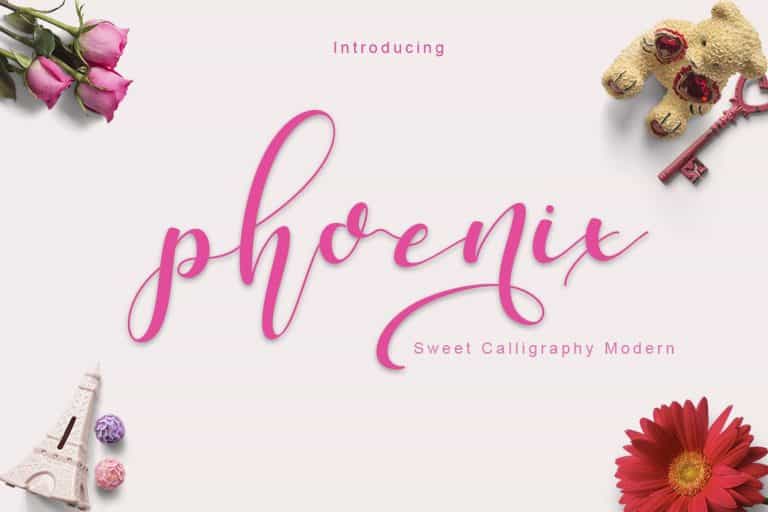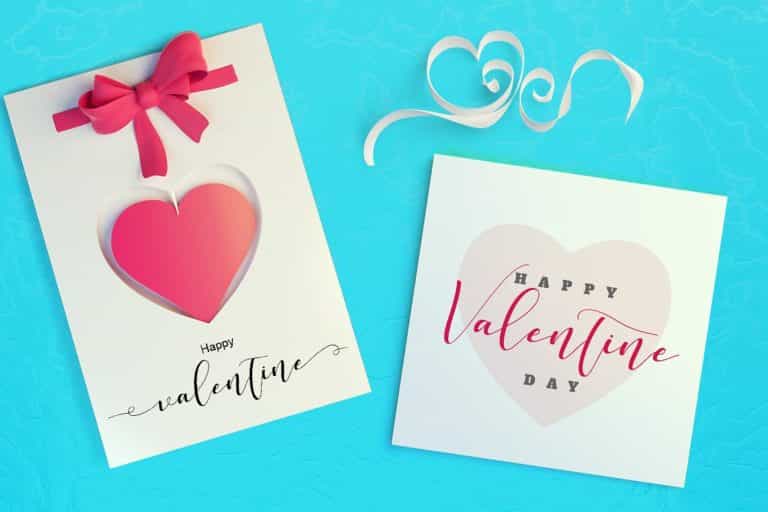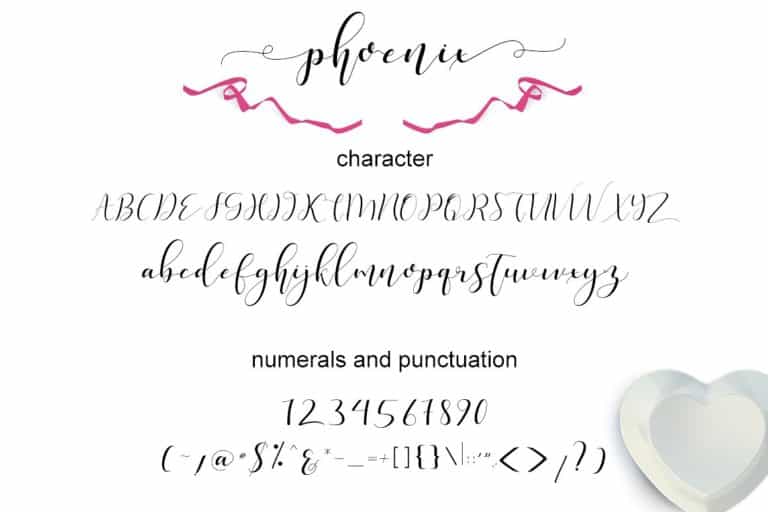
Introducing Phoenix Font. Phoenix a sweet calligraphy modern script style, decorative characters and dancing baselines! So beautiful on invitations, like greeting cards, branding materials, business cards, quotes, posters, and more!